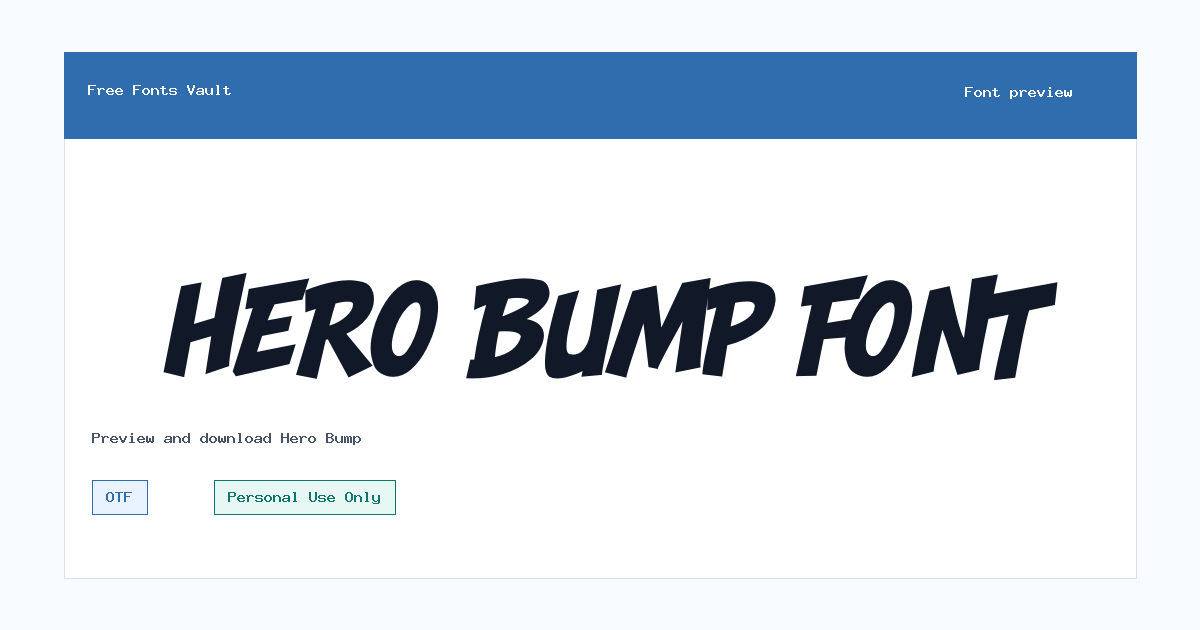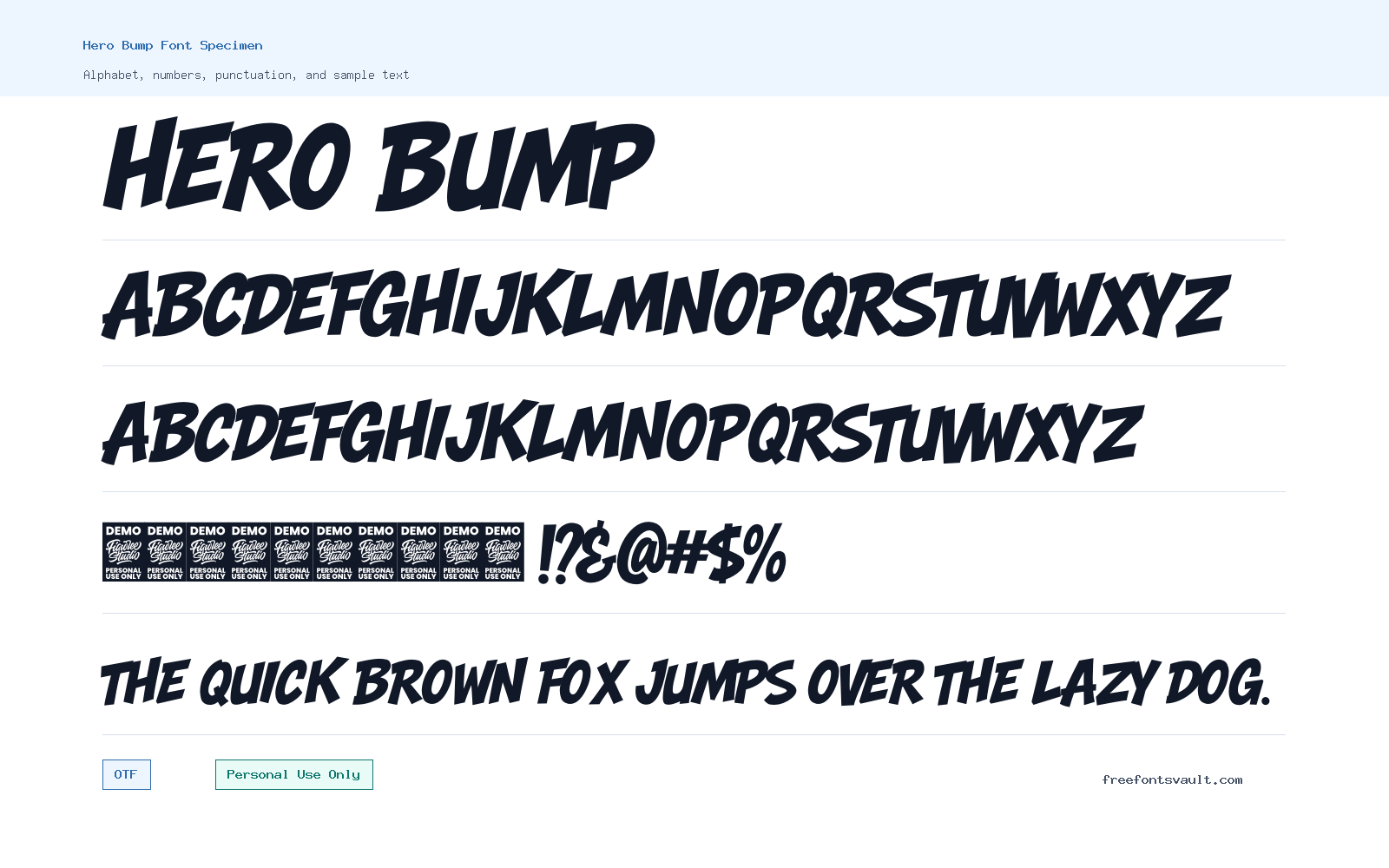
Hero Bump
- Designer Icep Anwar fadhil
Hero Bump is a bold display font with a fast, slanted look and chunky letter shapes. It is best tested in short words, titles, and graphic text where impact matters more than long-form reading.
Hero Bump has a heavy comic-style shape with angled strokes, tight curves, and sharp cut details. The letters lean forward, which gives headlines and short labels a sense of motion. In preview, it works strongest at larger sizes where the thick forms and slanted rhythm have room to show clearly.
- Bold slanted display lettering with a comic/action feel
- Heavy strokes that work best at medium to large sizes
- Game, comic, or action-themed headings
- Sticker text and short display phrases
- YouTube thumbnails or social post mockups for personal projects
Keep text short, use generous spacing, and preview both uppercase and lowercase before downloading. For a cleaner layout, pair Hero Bump with a simple sans serif for body text and reserve Hero Bump for the main title or accent words.
Hero Bump is best for short display text such as titles, posters, thumbnails, stickers, and playful graphic headings. It is less suitable for long paragraphs or small text.